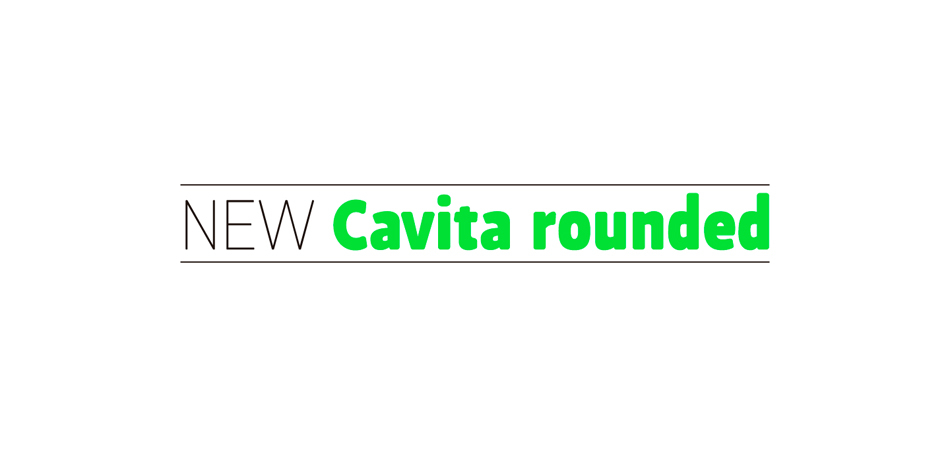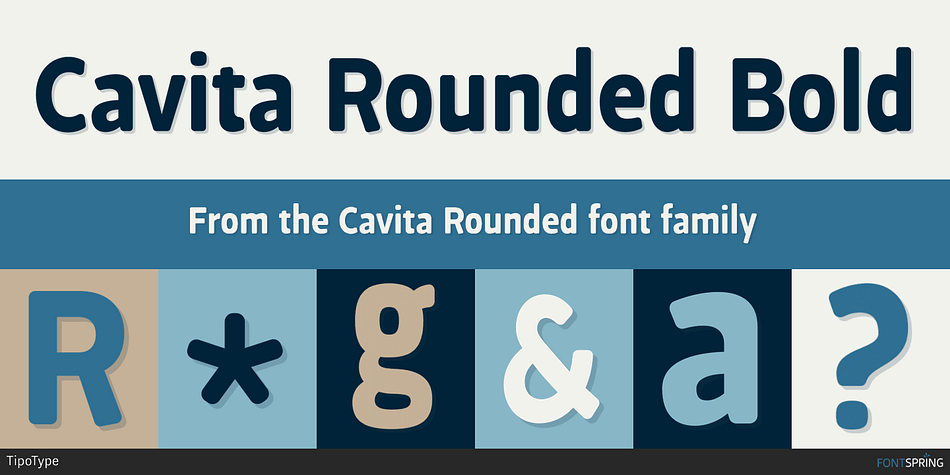
Cavita Rounded Bold
Cavita Rounded is a sans serif font family. This typeface has fourteen styles and was published by TipoType.
Cavita Rounded typeface is a mix between both grotesque and calligraphic models: regulars have a rough grotesque spirit, while the italics where inspired in calligraphic gestures.
All of these details are reinforced with an inverted modulation (horizontals strokes are thicker than usual). The italics seem to move away from the traditional concept of type system, but work very well alongside.
This typeface has very particular shapes and rhythm, itís different and identifiable from the rest, making it a very good option to use on any piece of design. Cavita Rounded is designed as an upgrade Cavita.